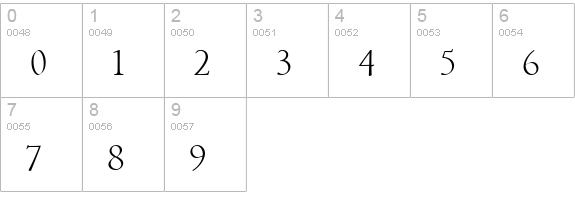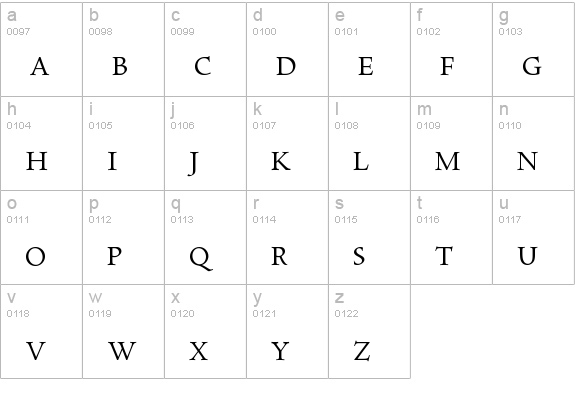
Spira-LightSmallCaps is a captivating and elegant font that will add a touch of sophistication to any design project. With its delicate curves and precise lines, this font exudes a sense of refinement and grace. This font features small caps, giving it a unique and distinctive look. The small caps add a touch of elegance and professionalism, making it perfect for branding, logos, headlines, and other creative projects. One of the standout features of Spira-LightSmallCaps is its versatility. Whether you're designing for print or digital media, this font will adapt seamlessly to any medium. Its clean and legible design ensures that your message will be conveyed clearly and effectively. But what truly sets Spira-LightSmallCaps apart is that it is freely available to download at FontsMarket.com. Yes, you read that right – this stunning font can be yours at no cost. FontsMarket.com offers a wide range of high-quality fonts, and Spira-LightSmallCaps is no exception. By offering this font for free, FontsMarket.com allows designers, creatives, and enthusiasts alike to access a top-notch font without breaking the bank. The generous availability of Spira-LightSmallCaps ensures that everyone can enjoy the beauty and versatility of this font, regardless of their budget. So, if you're looking for a font that combines elegance, versatility, and affordability, look no further than Spira-LightSmallCaps. Download it today at FontsMarket.com and unlock a world of creativity and design possibilities.